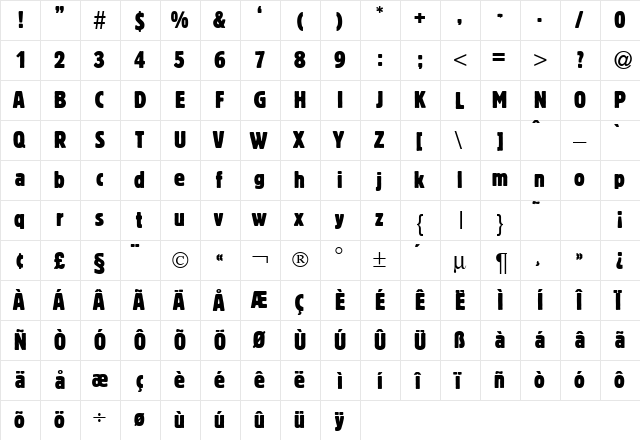
BlossumConDB Normal Font Preview
BlossumConDB Normal
BlossumConDB Normal Font Details
Design Context for BlossumConDB Typeface
BlossumConDB offers clean, dependable letterforms without strong stylistic allegiance, making it a practical choice for designers who need flexibility. The condensed width makes it efficient for tight spaces without sacrificing legibility.